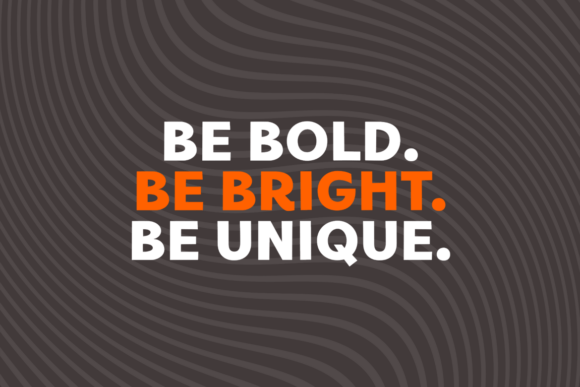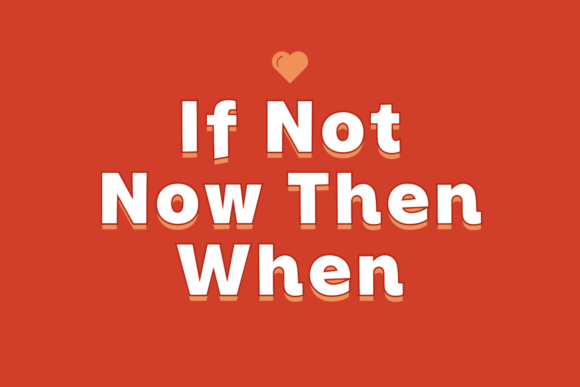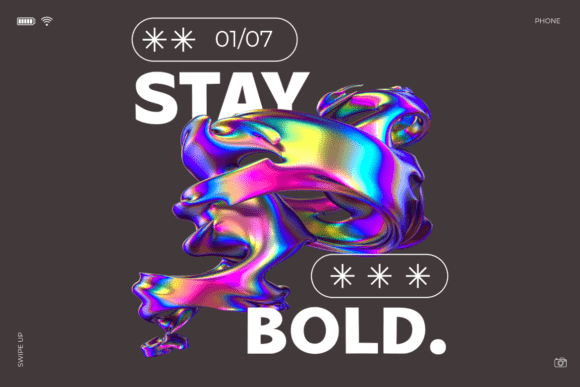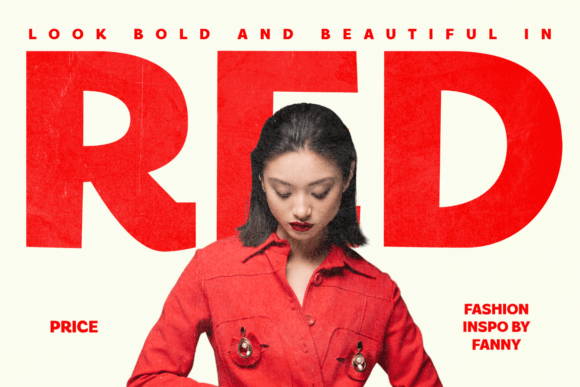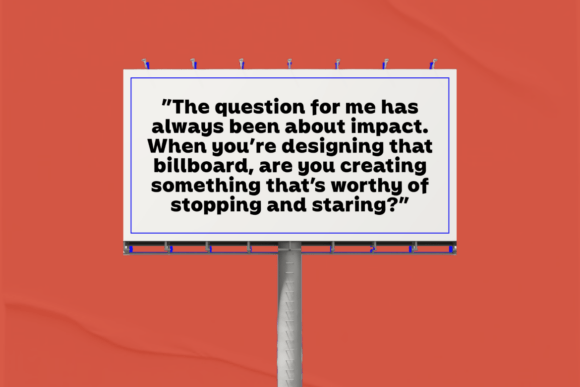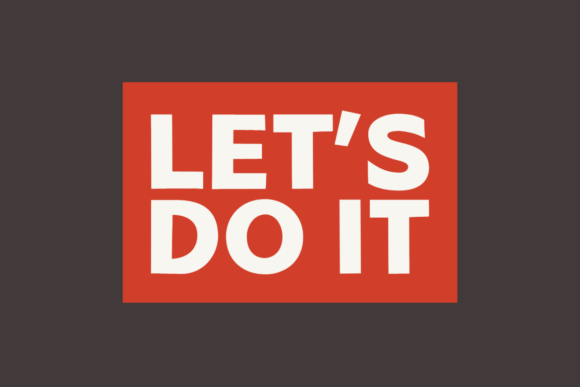
I still remember the frustration of working on a project, hours spent perfecting every detail, only to hit a roadblock: finding the right font. My client wanted something bold, modern, and eye-catching, but I was coming up blank. That’s when I stumbled upon the Driza Font – a game-changer for any designer looking to make a statement.
What is Driza Font?
Driza is a bold display sans serif font designed to create strong and modern visual impact. Featuring thick strokes, clean shapes, and subtle rounded details, this font is perfect for branding, logos, headlines, posters, packaging, and social media graphics. Its versatile and contemporary style makes Driza suitable for both professional and playful designs.
My Honest Review of Driza Font
- ✨ Versatility: Driza’s clean and modern design makes it perfect for a wide range of projects, from corporate branding to social media graphics.
- ✅ Legibility: The font’s thick strokes and clear shapes ensure that it remains legible even at smaller sizes.
- 💥 Impact: Driza’s bold design is sure to grab attention and make your design stand out.
- 🤔 Limited use for body text: Due to its bold design, Driza may not be the best choice for body text or longer blocks of text.
- ⚠️ Overuse: As with any bold font, be careful not to overuse Driza, as it can quickly become overwhelming.
The Story Behind Driza Font
Driza was designed with the goal of creating a bold and modern font that would make a statement. Inspired by the clean lines and geometric shapes of modern architecture, Driza’s designer aimed to create a font that would be both versatile and impactful.
| Font Name | Driza Font |
| Author | jinanstd |
Q: What is the best use for Driza Font?
A: Driza is best used for bold and eye-catching designs, such as branding, logos, headlines, posters, and social media graphics.
Q: Can I use Driza Font for body text?
A: While Driza can be used for body text, it may not be the best choice due to its bold design. It’s better suited for headings and titles.
Q: Is Driza Font suitable for professional designs?
A: Yes, Driza’s clean and modern design makes it perfect for professional designs, such as corporate branding and advertising.